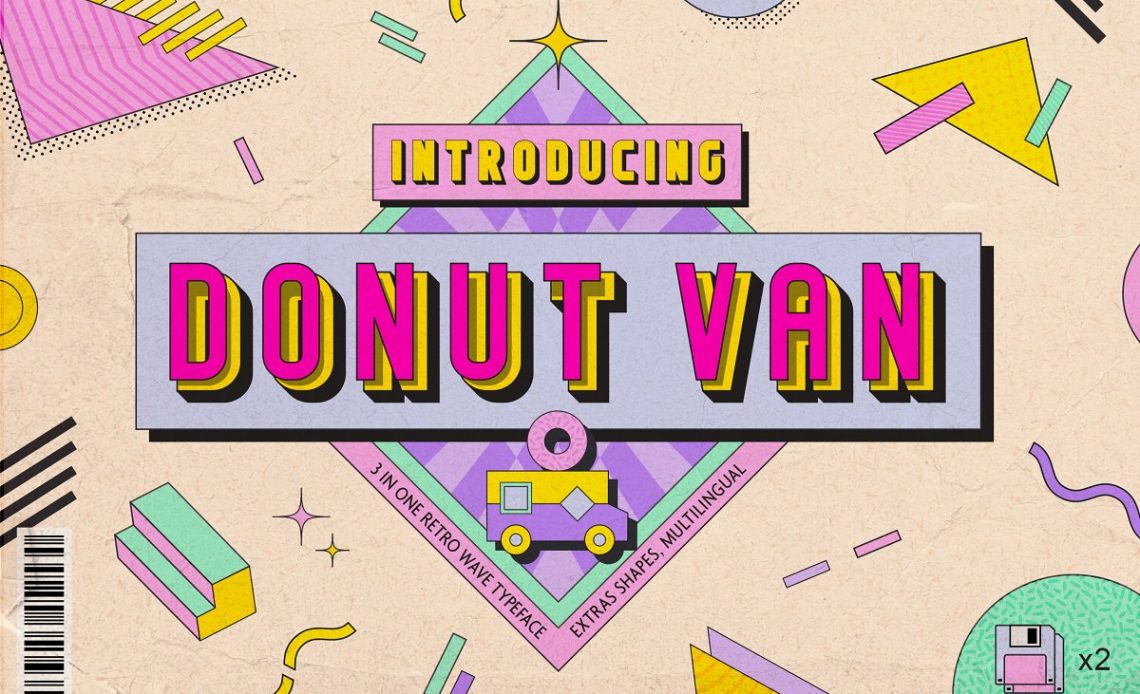
Introducing Donut Van – Trio (3 in 1) Colorful Font Family in sweet retro wave style with memphis trendy design. What a wonderful time it was! Sweet 80’s and early 90’s the time when you had VHS tapes with your favourite movies on the shelf under TV near your favourite board games. CDs and Laser Discs were on top of technology progress! This pack contains three styles of the Donut Van font with upper case, lower case, numbers, punctuation, multilingual and extra elements.
– Donut Van – Contains uppercase, lowercase characters with set of numerals and punctuation.
– Donut Van Pink – Contains uppercase, lowercase characters with set of numerals and punctuation.
– Donut Van Fatty – Contains uppercase, lowercase characters with set of numerals and punctuation.
Extras:
– Set of Memphis graphic elements and shapes